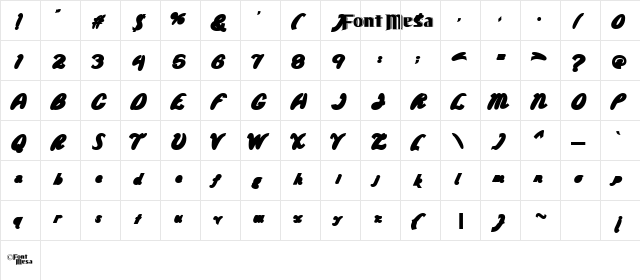
Wild Ride Back Fill Regular
Design Context for Wild Ride Back Fill Typeface
Wild Ride Back Fill is a composed and adaptable typeface that performs quietly and consistently across a wide range of design contexts.